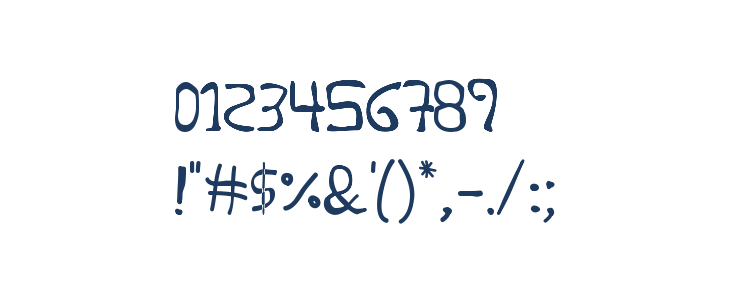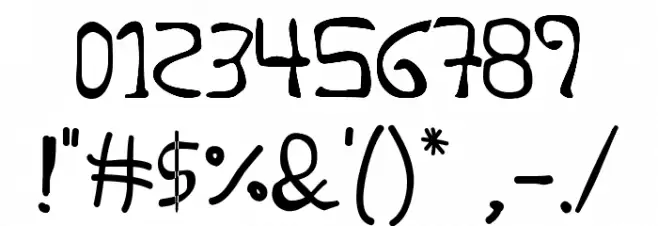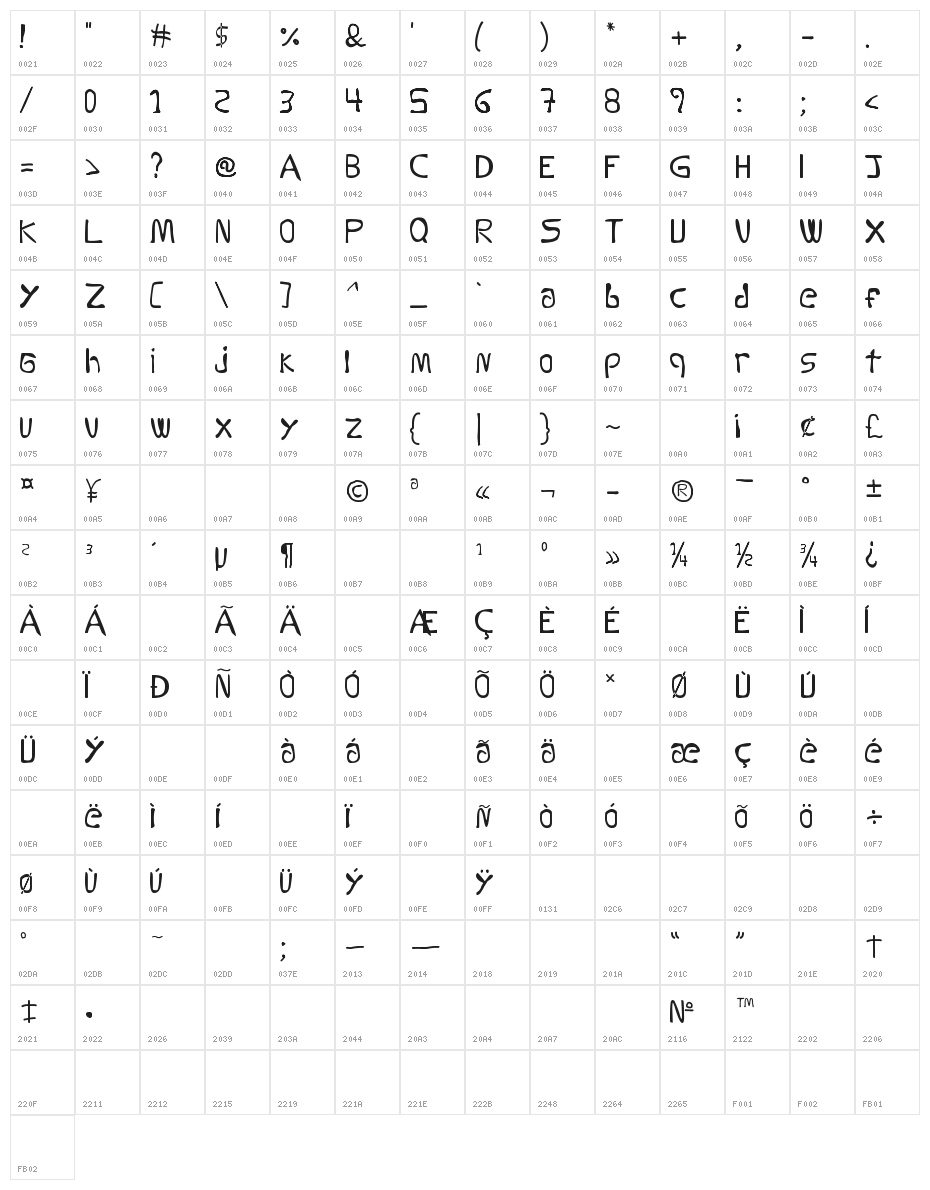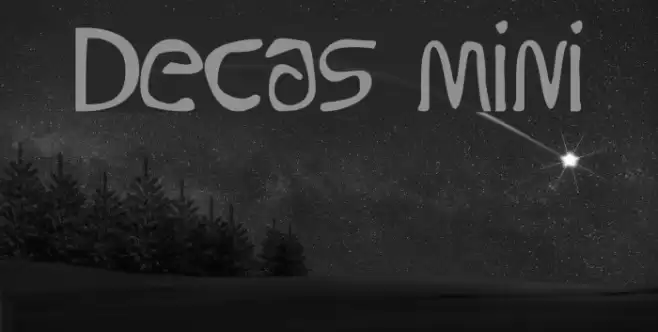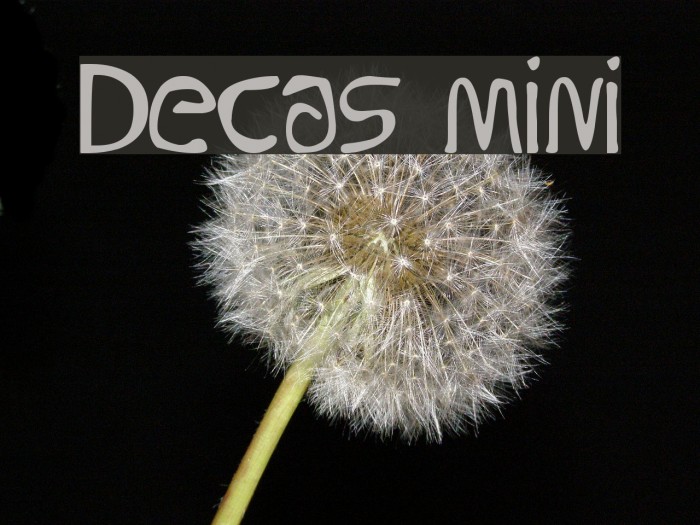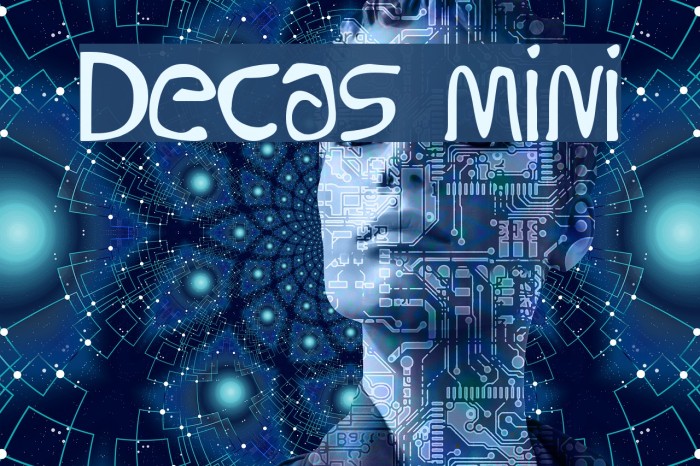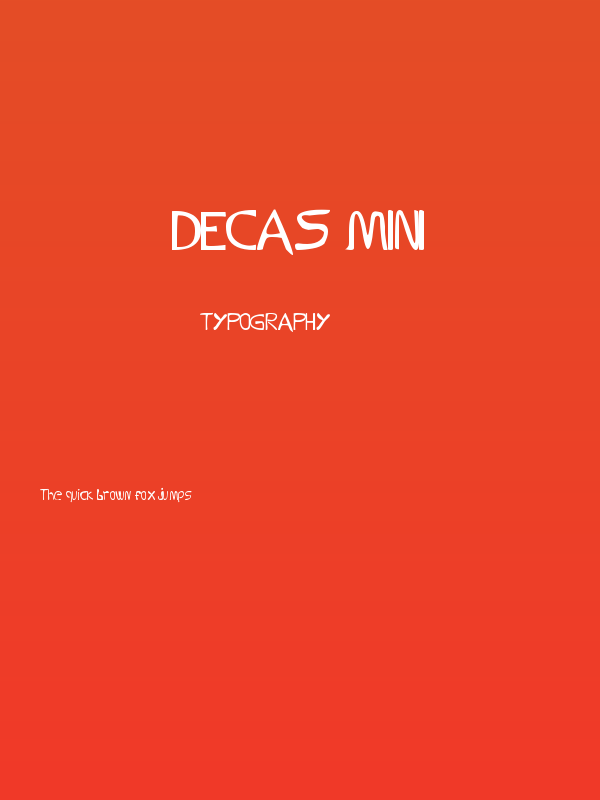
Decas mini Font
Decas mini Description
This font features a playful and unique design with a hand-drawn aesthetic. The characters are slightly irregular, giving them a whimsical and informal feel. The uppercase and lowercase letters maintain a consistent style, with rounded edges and a slightly condensed form. The numbers and special characters follow the same playful design, making the font suitable for creative and casual projects. The overall appearance is bold and eye-catching, with medium contrast in stroke thickness, adding to its distinctive charm.